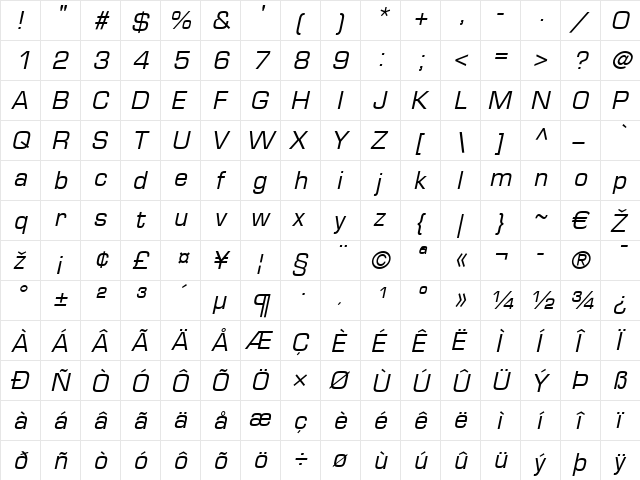
Eurostile LT Italic
Design Context for Eurostile LT Typeface
Eurostile LT offers clean, dependable letterforms without strong stylistic allegiance, making it a practical choice for designers who need flexibility. Its italic angle brings a sense of urgency and motion to the letterforms. The delicate stroke weight brings airiness and refinement to layouts.
Pro Tip: Use Eurostile LT for emphasis, pull quotes, and subheadings where its slanted energy can add rhythm to the layout.